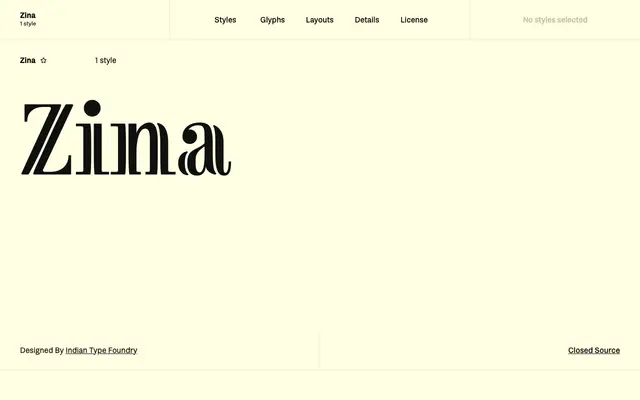
Zina
A single-weight inline Didone serif from Indian Type Foundry, designed for large display settings where its jewel-like inlines and ball terminals can read clearly.
Rooted in early nineteenth-century Didone conventions, Zina pairs light, lightly bracketed serifs with prominent ball terminals and decorative inline strokes that run through the thick parts of each letterform. That inline treatment is the typeface's defining characteristic, giving letters a faceted, cut-glass quality that only reads well at subheadline sizes and above. Available in one static style with coverage for 135 languages across an extended Latin character set.
Zina is categorised as Display by Fontshare; it is a Didone-style inline serif whose defining feature is decorative strokes running through thick letterform bodies, making it unsuitable for body text and firmly display-category.